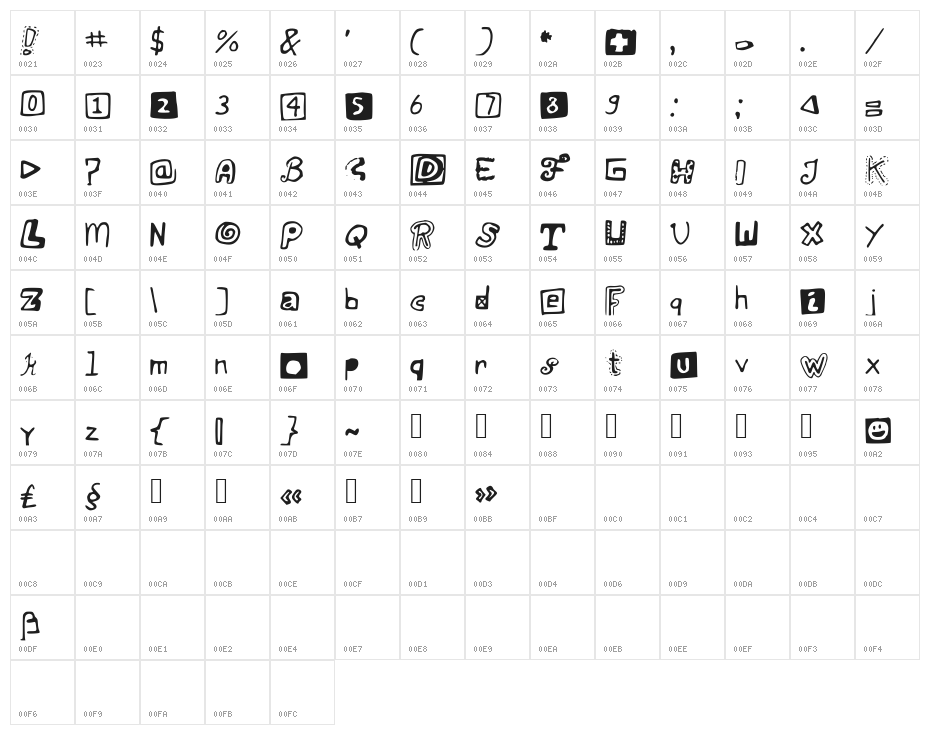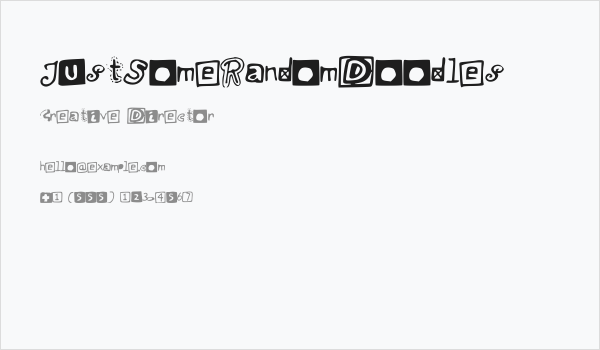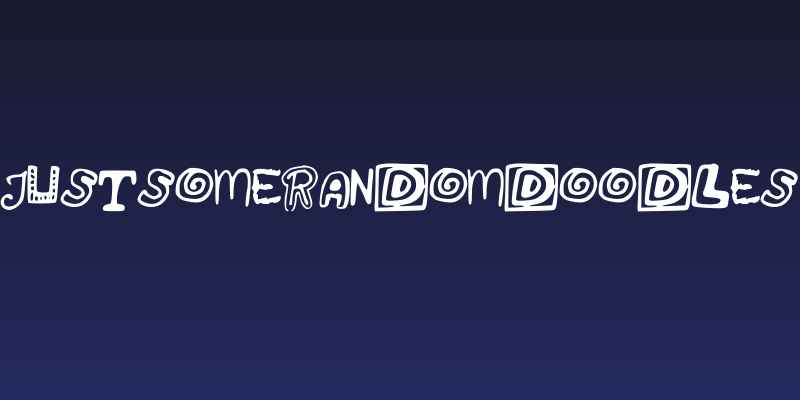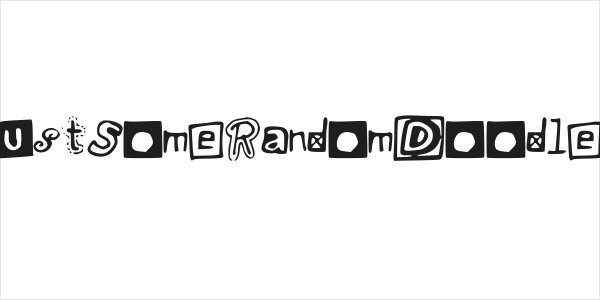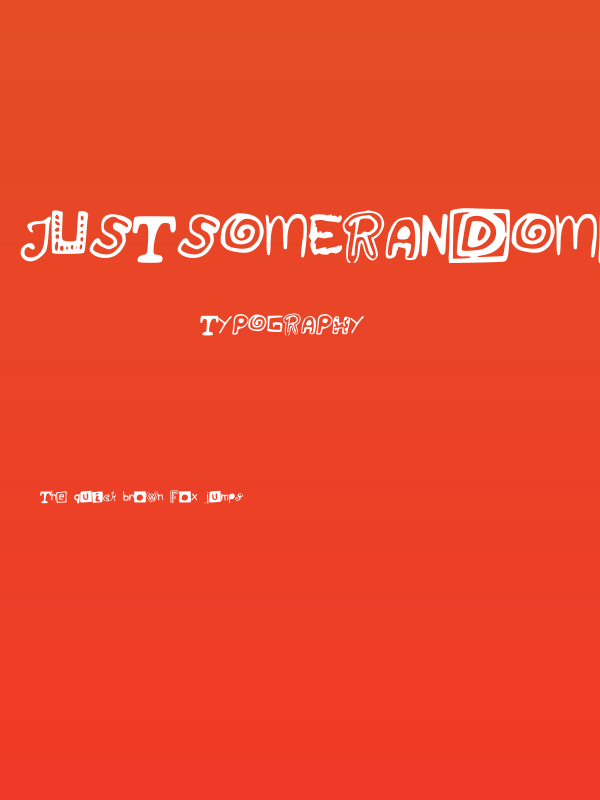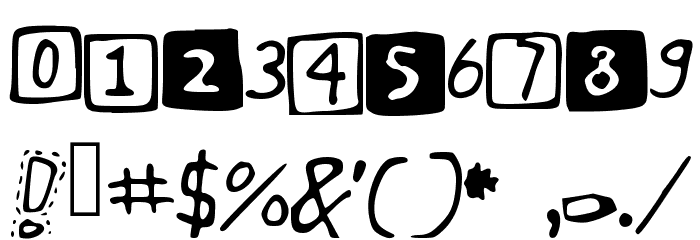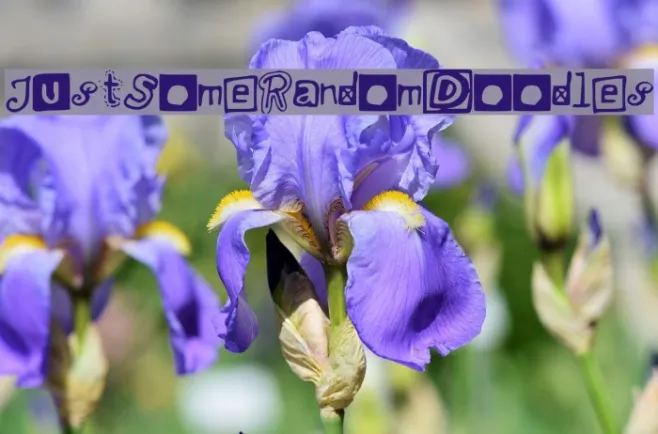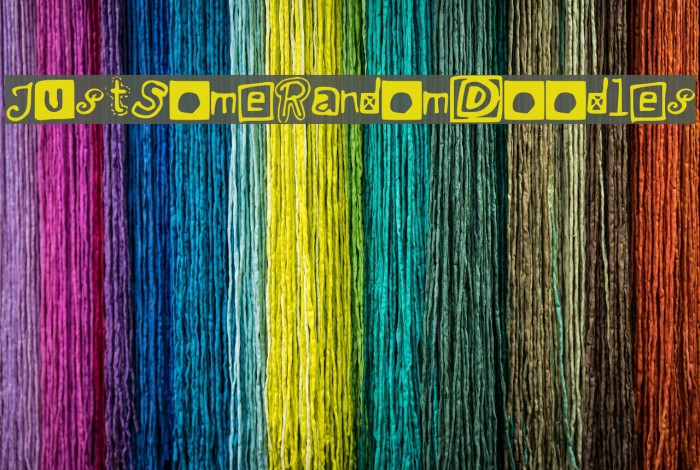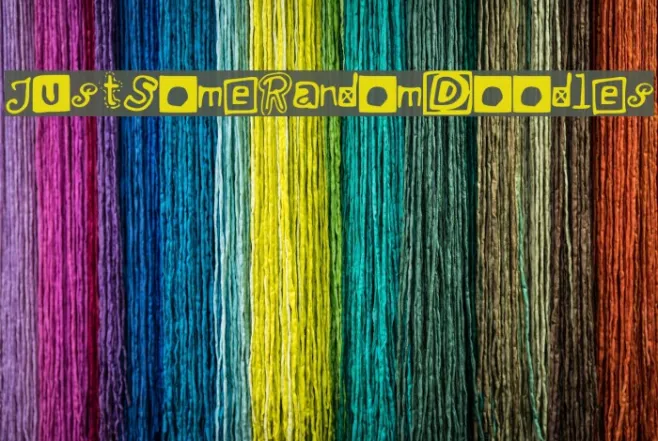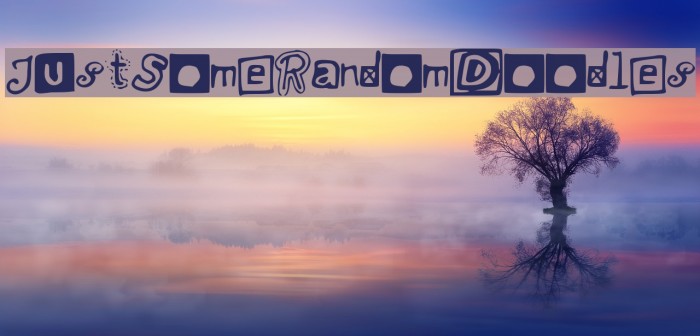
JustSomeRandomDoodles Font
JustSomeRandomDoodles Description
This font is a playful and eclectic mix of styles, featuring a variety of decorative elements and unique character shapes. Each letter is distinct, with some incorporating bold outlines, others filled with patterns or dots, and some with whimsical curves. The numbers and special characters follow the same playful theme, with a mix of solid and outlined forms. This font exudes a sense of fun and creativity, making it ideal for projects that require a lively and unconventional typeface.
| Proposed Projects | Ideal for children's book covers, playful posters, creative branding, and any project that requires a fun and lively typeface. |